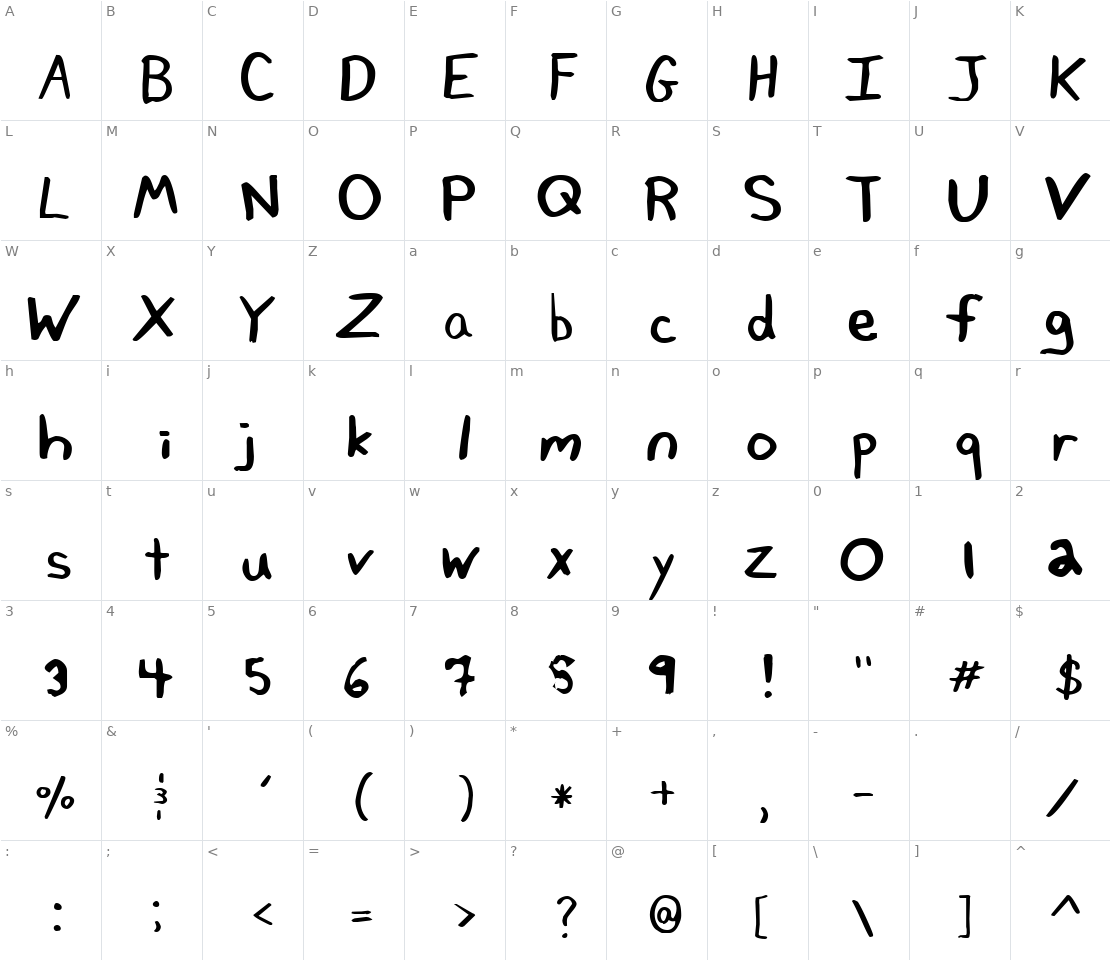
Tawattype 2
Tawattype 2 is a bold, marker-style handwritten face from Marianfudge with thick strokes and a loose, irregular rhythm that keeps it feeling genuinely informal. The letters have a playful wobble to them, like someone jotting down notes with a chunky felt-tip in a hurry. Works well as a display face for headlines, posters, and casual branding where you want something that reads as human and unpolished.